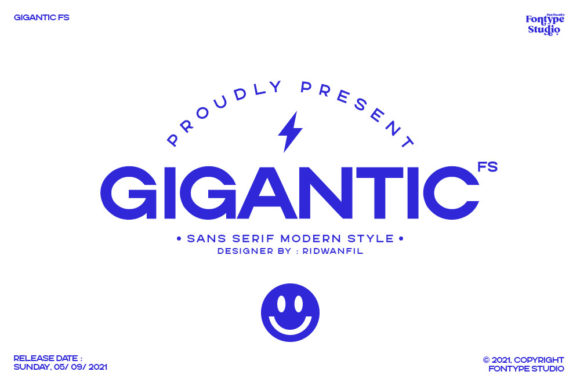
Introducing Gigantic Font: The Ultimate Sans Serif for Creative Projects
In the world of typography, fonts play a crucial role in making or breaking a design. A well-chosen font can elevate your creative project, making it stand out from the crowd, while a poorly chosen one can have the opposite effect. This is where Gigantic Font comes into play. As a minimal and neat sans serif font, Gigantic is designed to be versatile and adaptable, making it an excellent addition to your typography arsenal.
What is Gigantic Font?
Gigantic is a modern sans serif font that exudes simplicity and elegance. Its clean lines, rounded edges, and balanced proportions make it an ideal choice for a wide range of creative projects. Whether you’re working on a branding campaign, a website design, or a print project, Gigantic Font is sure to make your text look crisp, clear, and highly legible.
Key Features of Gigantic Font
- Minimal and Neat Design: Gigantic Font boasts a minimalist design that ensures your text looks clean and uncluttered.
- Sans Serif Style: The font’s sans serif style makes it perfect for digital and print projects that require a modern look.
- High Legibility: Gigantic Font is designed to be highly legible, even at small font sizes.
- Versatile: The font can be used in a wide range of creative projects, from branding and advertising to website design and publishing.
Celebrating Creativity: How to Use Gigantic Font in Your Projects
Gigantic Font is an incredibly versatile typeface that can be used in a multitude of creative projects. Here are some ideas to get you started:
- Branding and Logo Design: Use Gigantic Font to create a bold and memorable logo that stands out.
- Website Design: Gigantic Font is perfect for website headers, titles, and other design elements that require a modern and clean look.
- Print Design: The font can be used in brochures, posters, flyers, and other print materials that require a crisp and professional look.
- Advertising: Gigantic Font can be used in advertising campaigns to create eye-catching headlines and titles.
Typography Tips: How to Make the Most of Gigantic Font
To get the most out of Gigantic Font, here are some typography tips to keep in mind:
- Pair it with Other Fonts: Gigantic Font can be paired with other fonts to create a unique and visually appealing typography scheme.
- Experiment with Font Sizes: Don’t be afraid to experiment with different font sizes to create visual hierarchy and emphasis.
- Use Color Effectively: Use color to add contrast and make your text stand out.
In conclusion, Gigantic Font is an excellent choice for creative projects that require a modern, clean, and highly legible sans serif font. Its versatility, simplicity, and elegance make it an ideal addition to your typography arsenal. Whether you’re working on a branding campaign, website design, or print project, Gigantic Font is sure to make your text stand out.